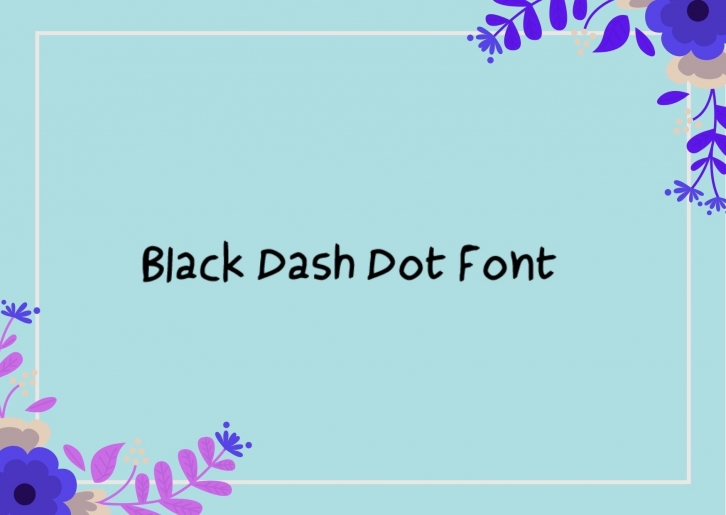
Black Dash Dot is a cool and versatile display font. No matter the topic, this font will be an incredible asset to your fonts’ library, as it has the potential to elevate any creation!